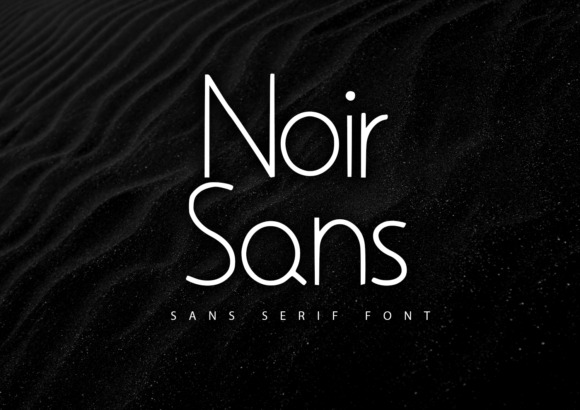
Indulge in the alluring depths of Noir Sans, a contemporary sans serif font that will captivate your senses and elevate your designs to new heights. With its crisp lines and minimalist aesthetic, it exudes an air of sophistication and elegance that will leave an unforgettable mark on your audience.
Crafted by the masterminds at Alchemy Noir, Noir Sans is not merely a font; it's an expression of modern typography. Its versatility knows no bounds, seamlessly adapting to a myriad of creative endeavors. Whether you're crafting stunning product designs, shaping captivating brand identities, or creating eye-catching album covers, Noir Sans will amplify your message with undeniable style.
Imagine the impact of your flyers adorned with the sleek contours of Noir Sans. Its clean lines will guide the reader's gaze effortlessly through your message, ensuring maximum impact. Its minimalist aesthetic will complement your content beautifully, allowing your words to shine without distraction.
With Noir Sans, you'll discover a world of endless possibilities. Its adaptability extends beyond flyers, making it the perfect choice for posters, logos, website designs, and any other project that demands a touch of modern sophistication. Experience the transformative power of Noir Sans today and see your designs soar to new heights of elegance and impact.